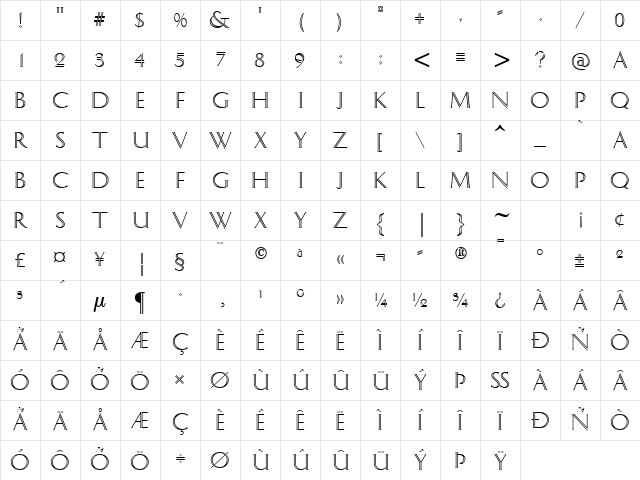
Complete Worthton Regular glyph index. Displaying only characters natively supported by Worthton Regular font.
Worthton is a composed and adaptable typeface that performs quietly and consistently across a wide range of design contexts.